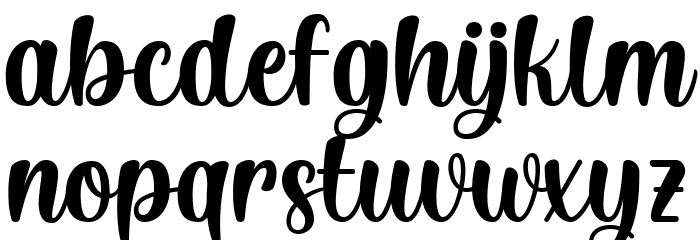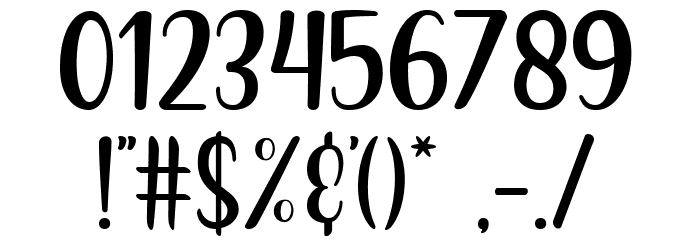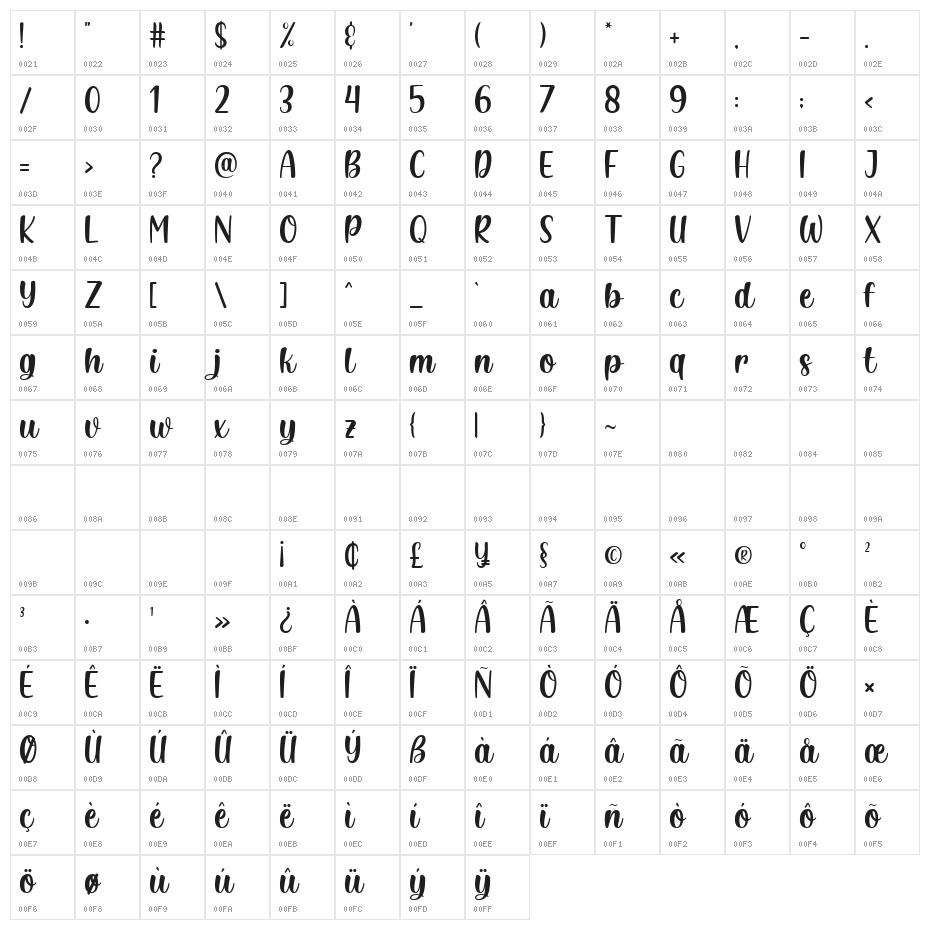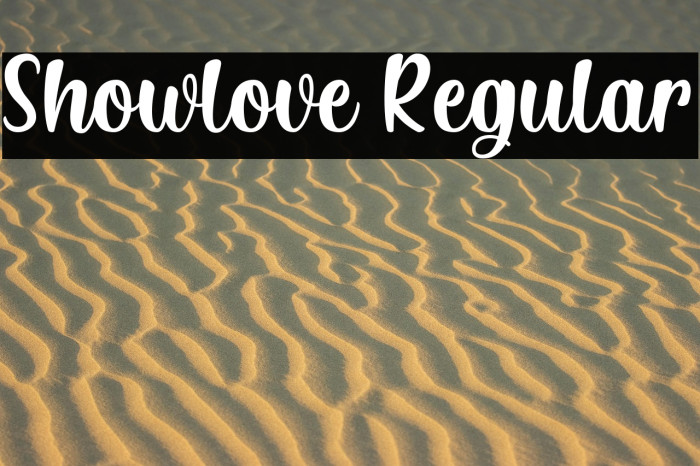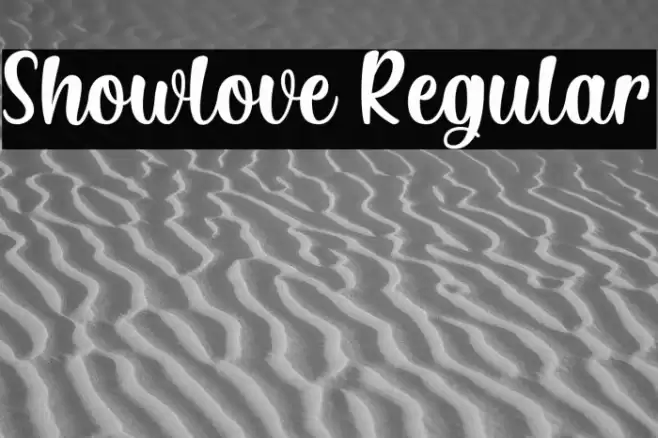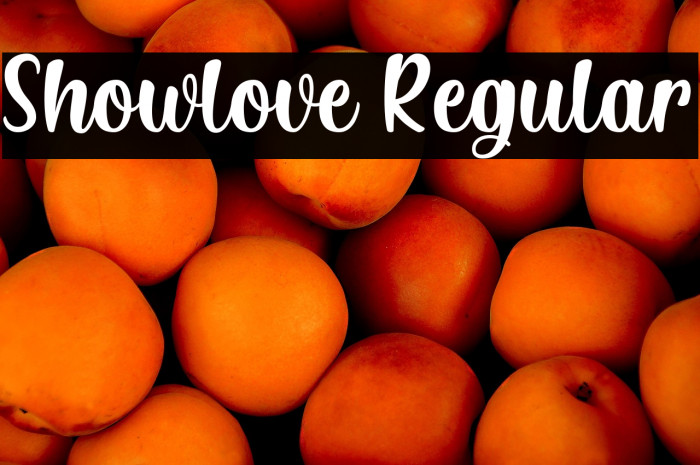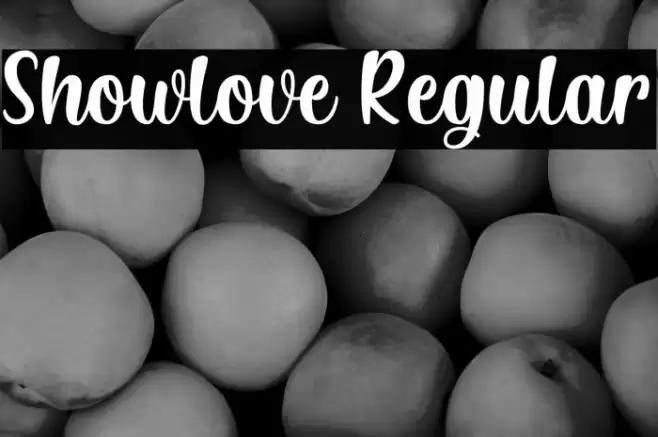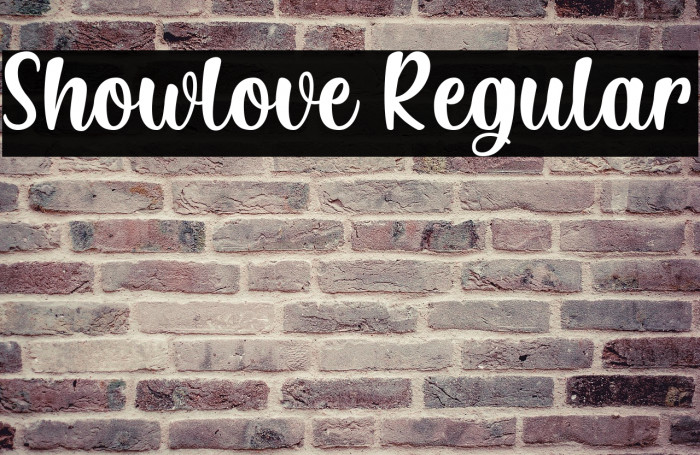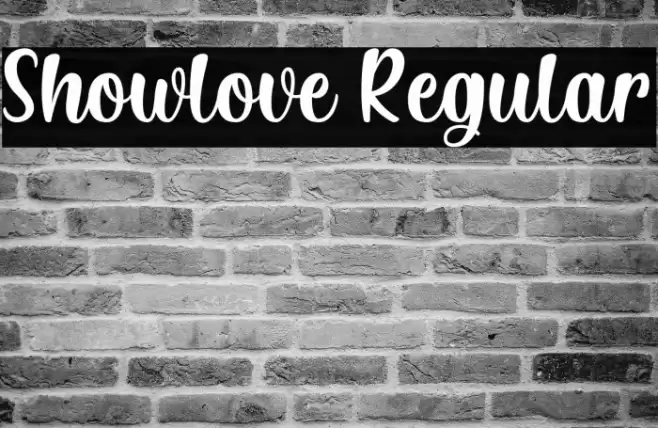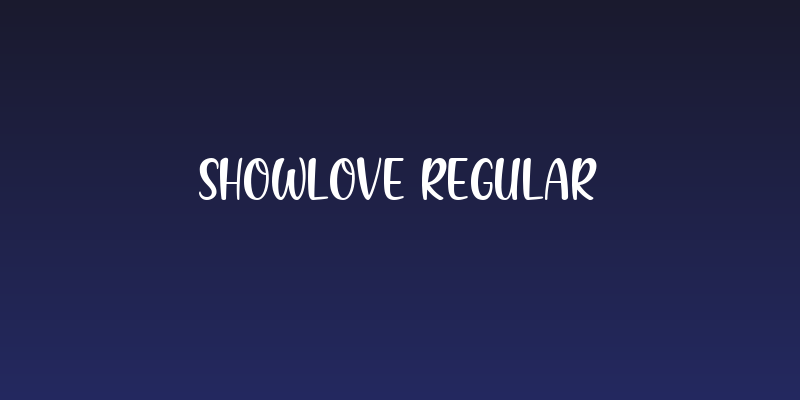
Showlove Regular Font
This font features a playful and expressive handwritten style, characterized by its bold and flowing letterforms. The uppercase letters are tall and slightly narrow, with a consistent stroke width that adds to its bold appearance. The lowercase letters are more rounded and connected, giving a sense of fluidity and movement. The numbers maintain the same boldness, ensuring readability. Special characters are creatively designed, maintaining the overall playful aesthetic. This font exudes a sense of warmth and friendliness, making it ideal for projects that require a personal touch.
A bold, playful handwritten font with flowing letterforms.
- Font: Showlove Regular
- Proposed Projects: Ideal for greeting cards, invitations, posters, and branding projects that require a personal and friendly touch.
- Category: Handwritten
- Overall Style: Playful
- Use Case: Logos, Headlines, Invitations